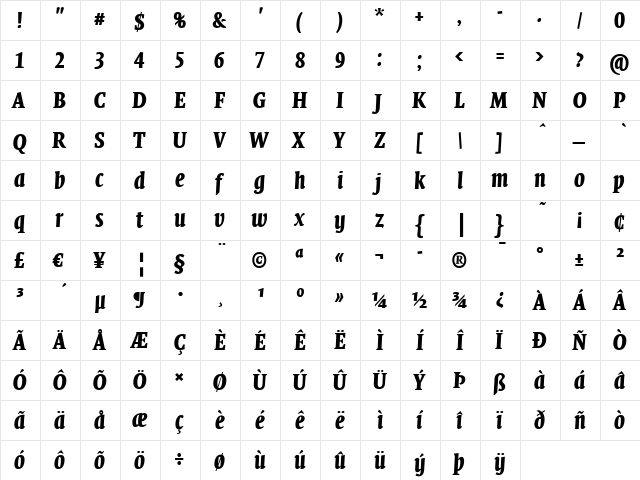
QuadraatDis Bold Italic
| Foundry | Fred Smeijers, . Published by FontShop International. FontFont Release |
Design Context for QuadraatDis Typeface
QuadraatDis is a composed and adaptable typeface that performs quietly and consistently across a wide range of design contexts. Its italic angle brings a sense of urgency and motion to the letterforms. Its bold stroke weight gives it real presence on the page.
Pro Tip: Use QuadraatDis for emphasis, pull quotes, and subheadings where its slanted energy can add rhythm to the layout.